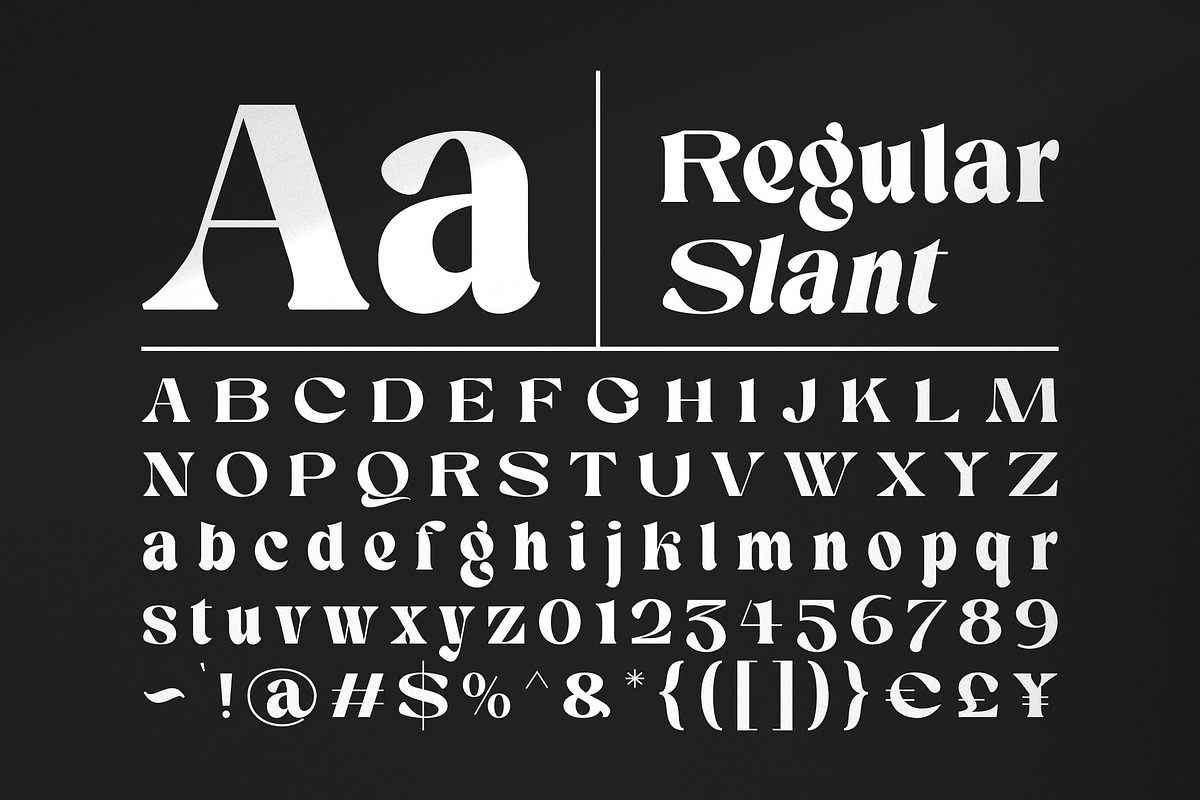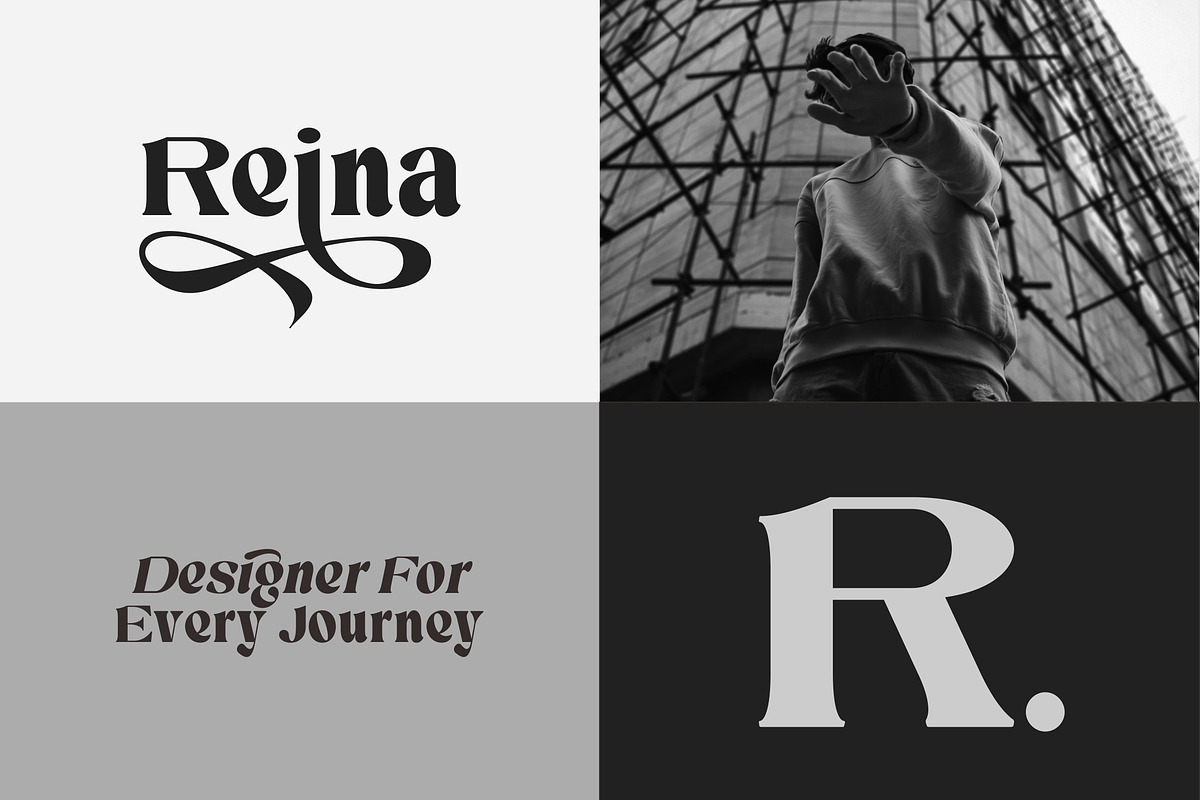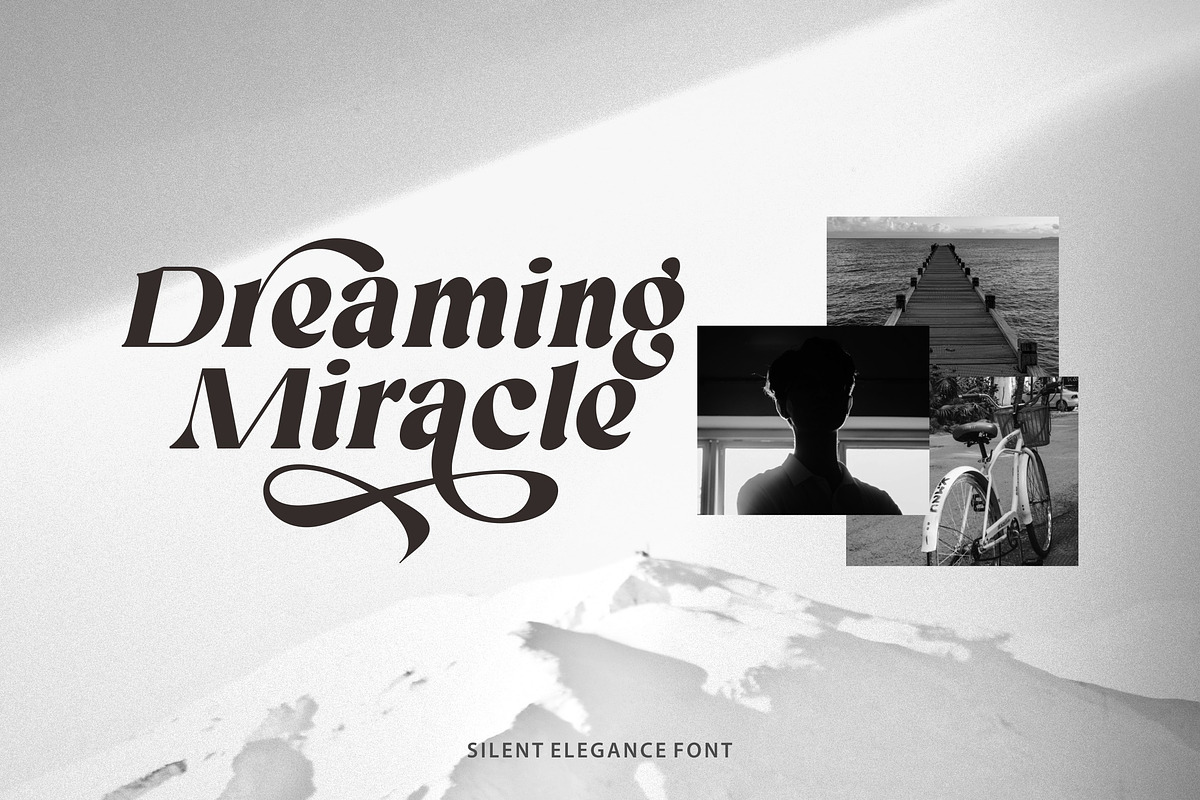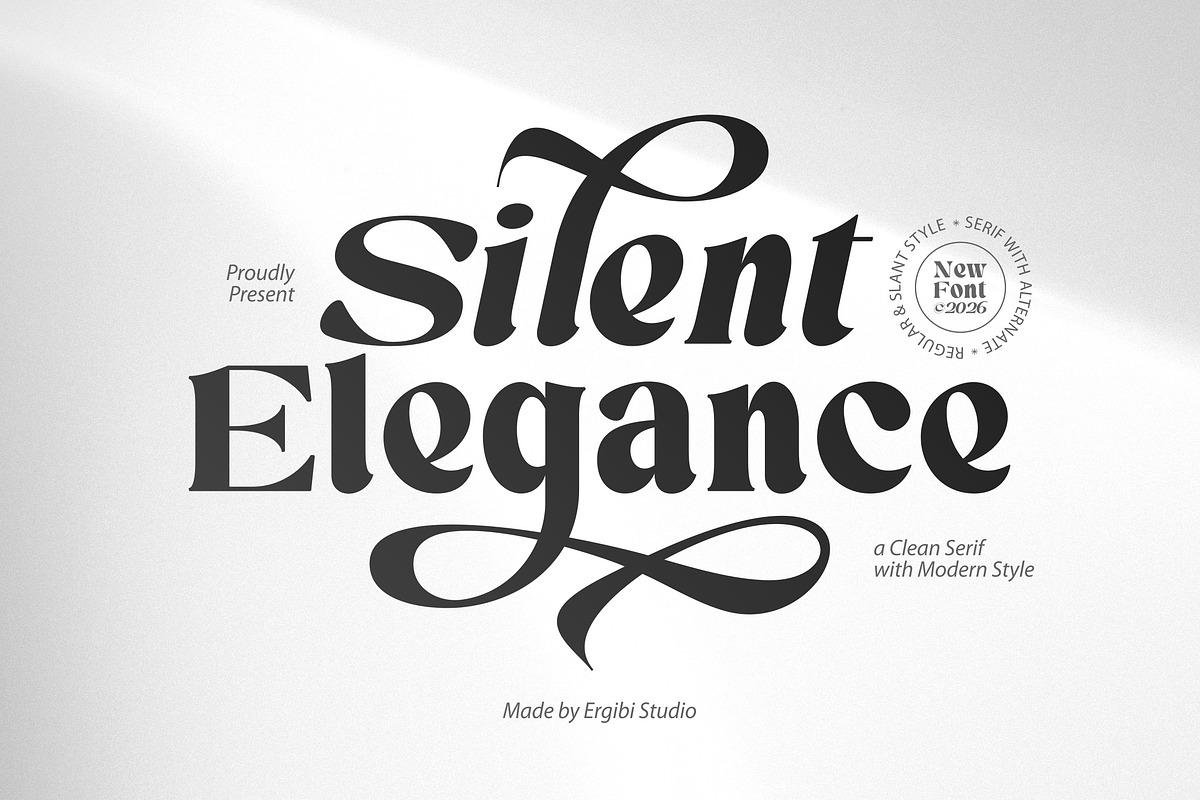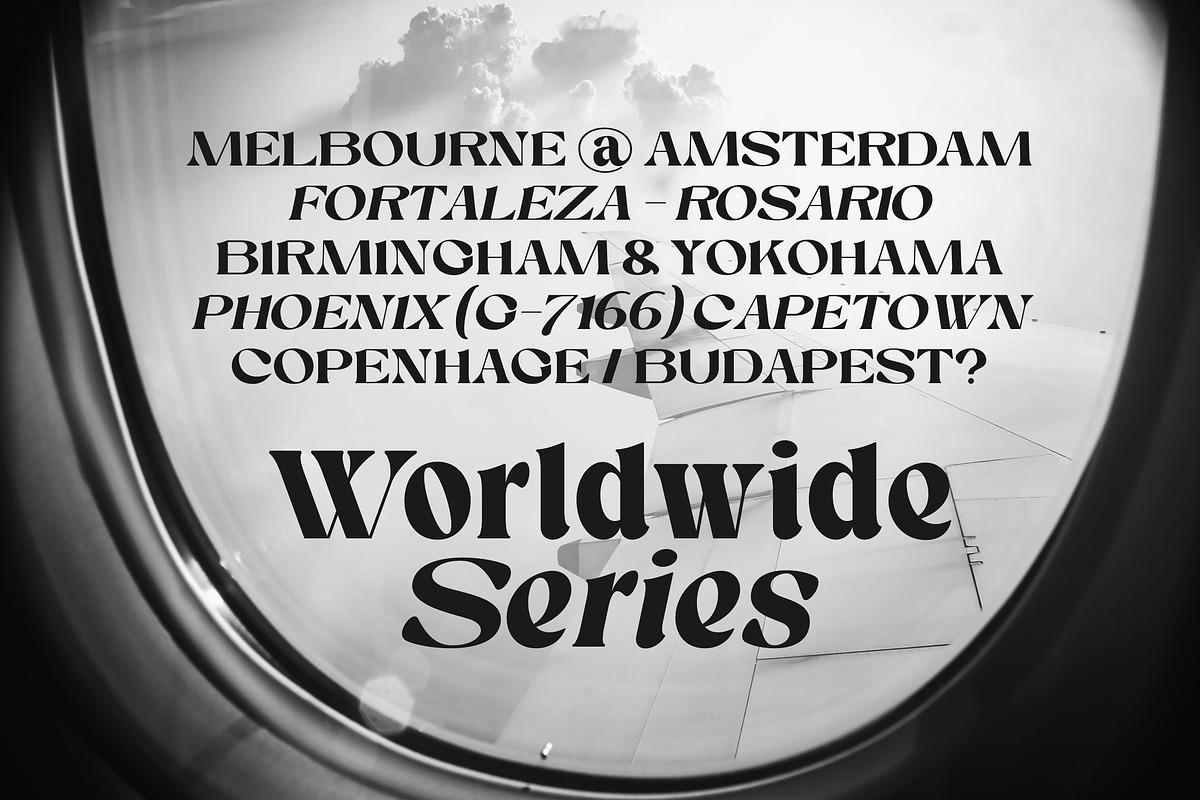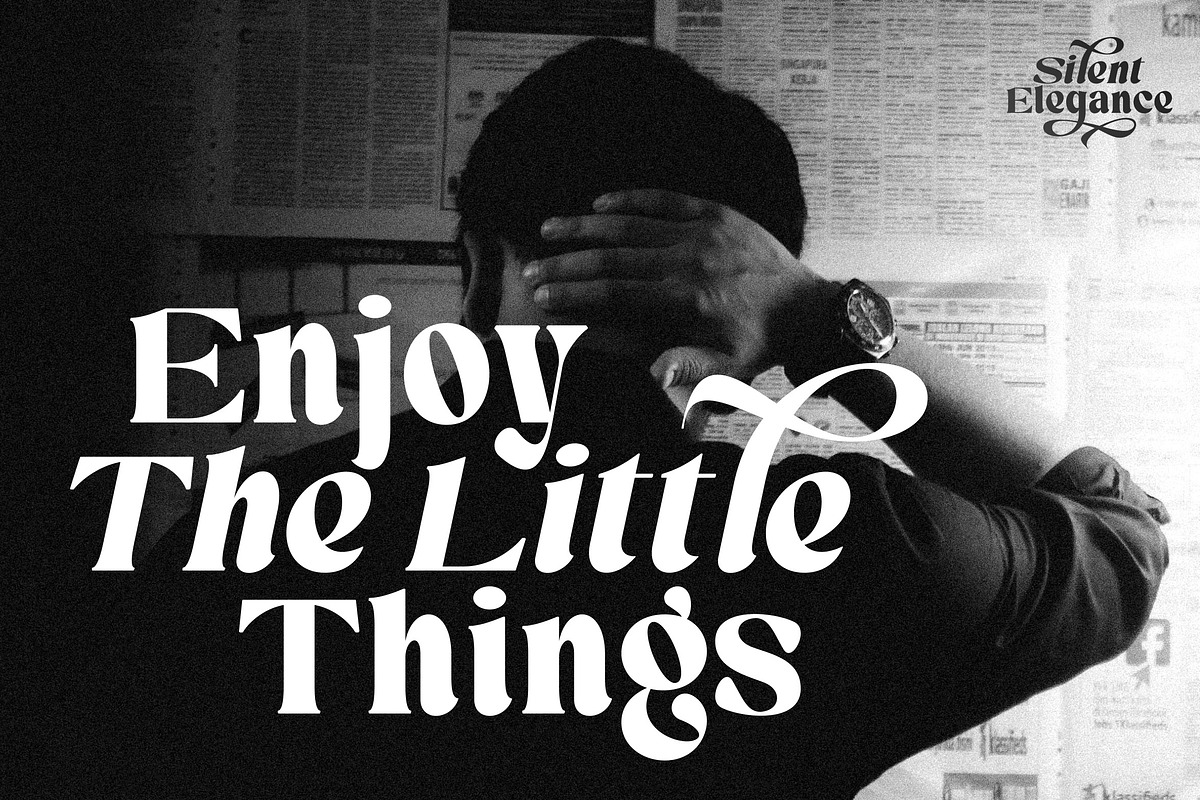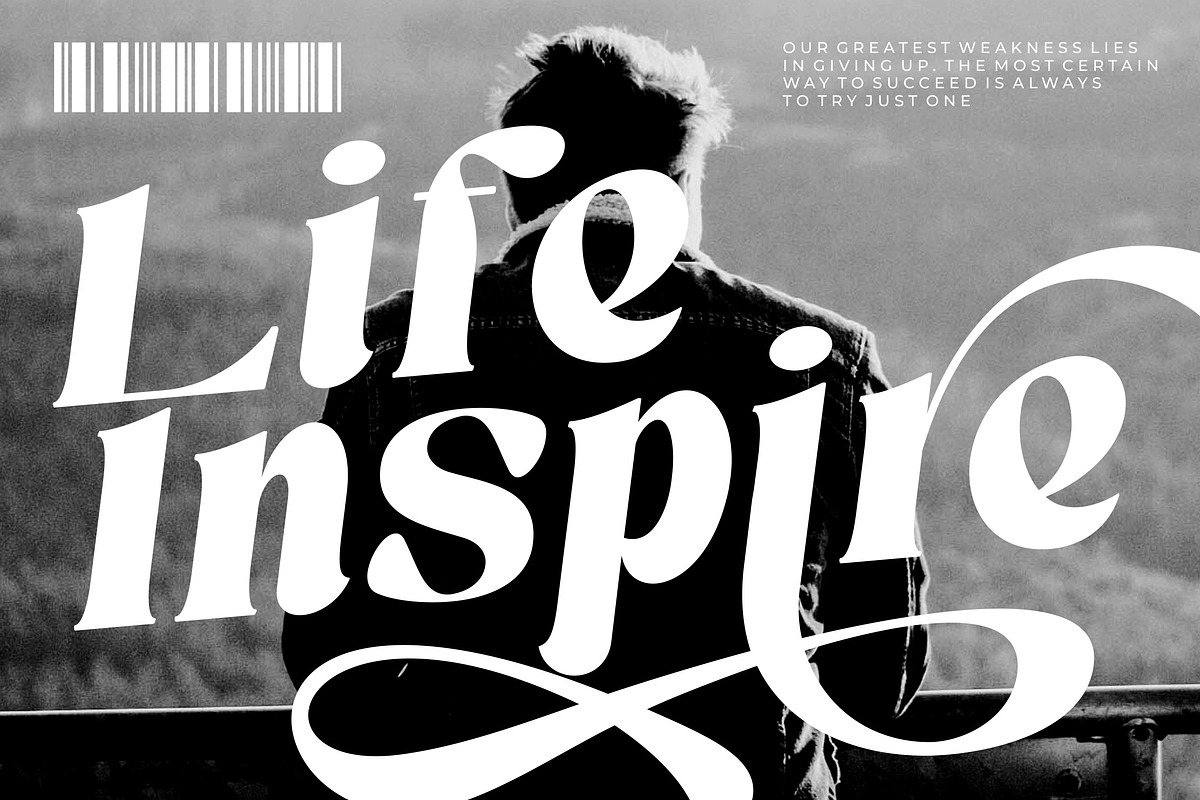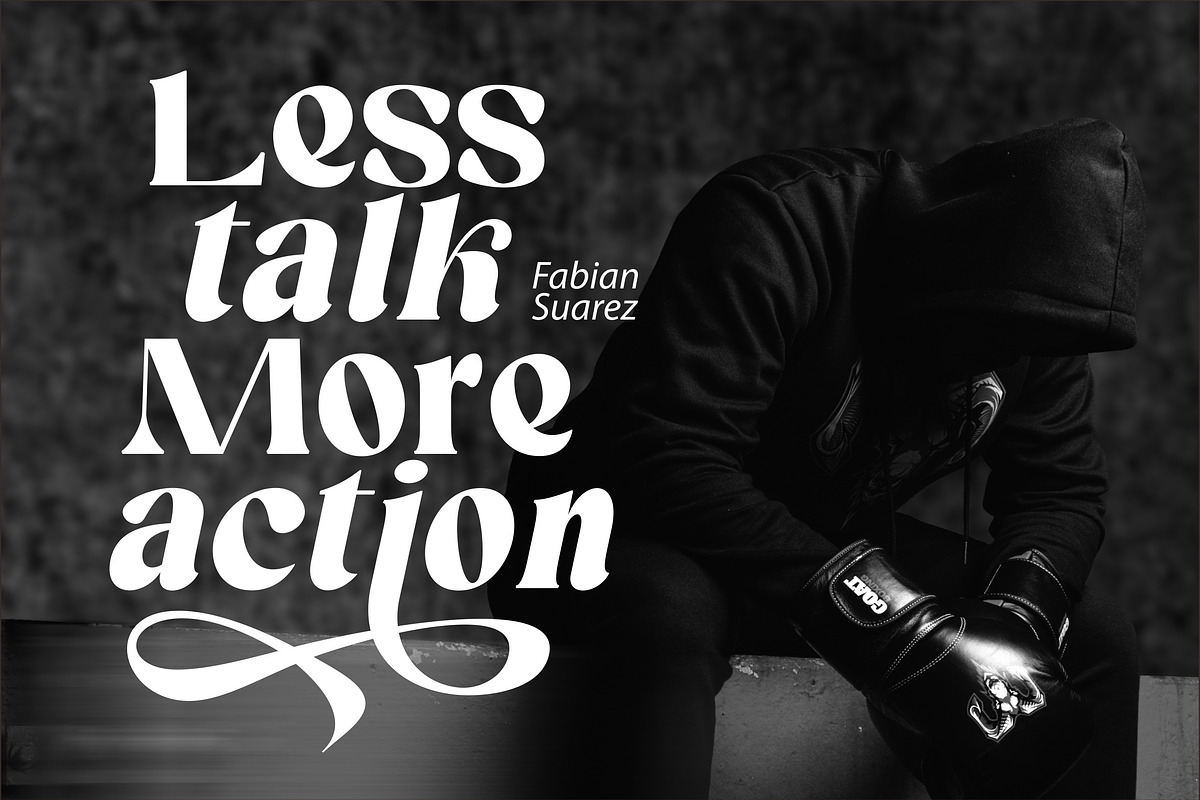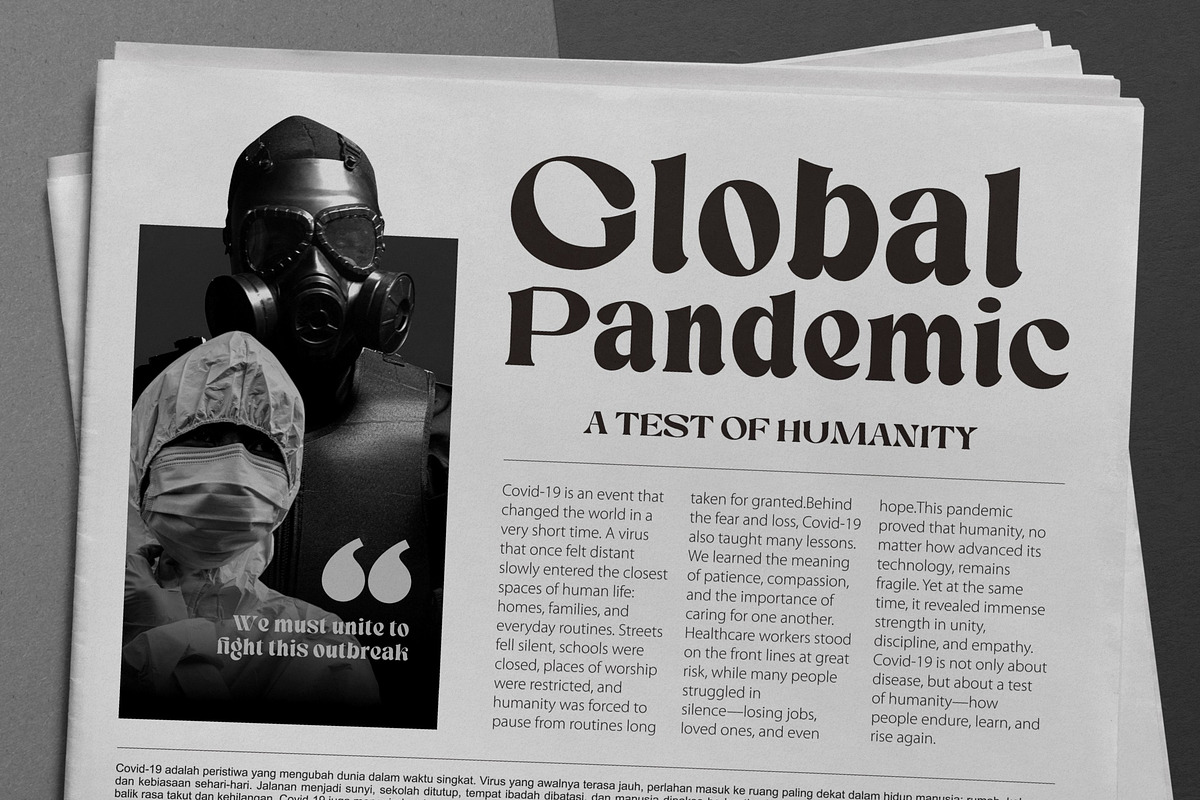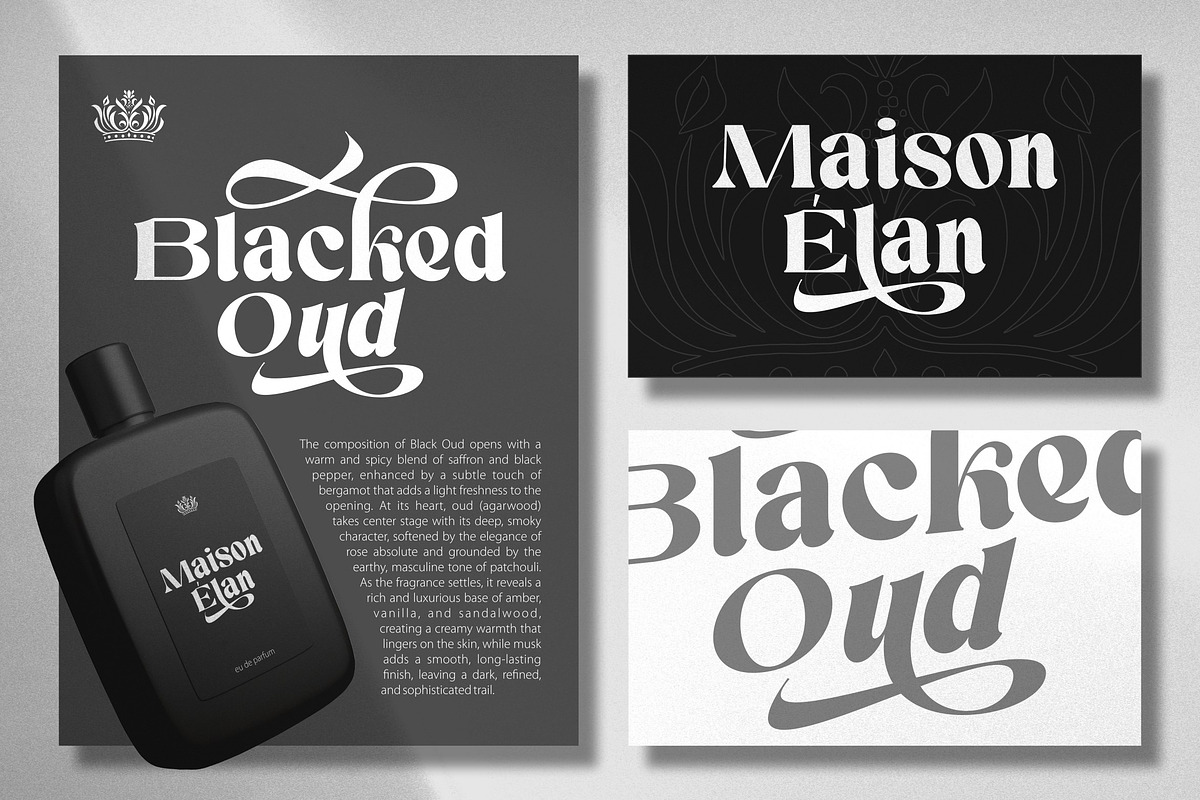
Silent Elegance - Clean Serif
Silent Elegance is a modern serif typeface created to bring a quiet sense of luxury and refinement into your designs. It blends classic serif structure with soft contemporary touches, resulting in a look that feels timeless yet fresh. Silent Elegance is designed to be versatile — it can look clean and minimal in one layout, yet expressive and stylish in another, depending on how you use it.
Carefully crafted letterforms, balanced proportions, and graceful alternate characters give the font a natural flow, making it perfect for logos, branding, editorials, fashion visuals, packaging, and any project that needs a touch of sophistication without feeling overly formal.